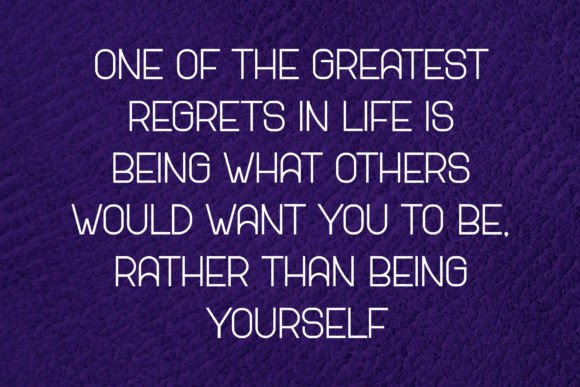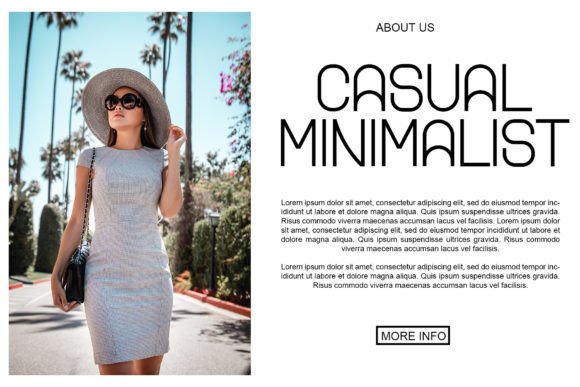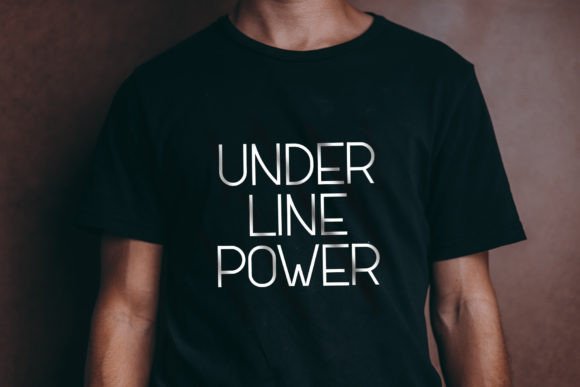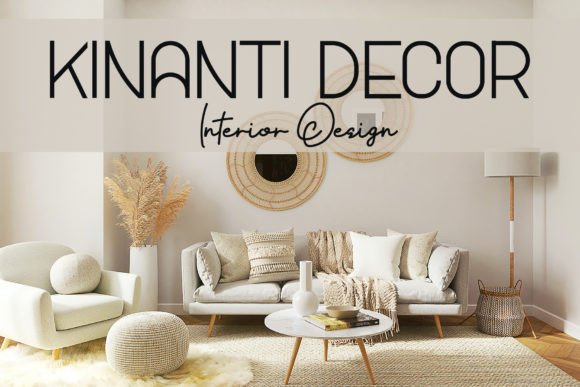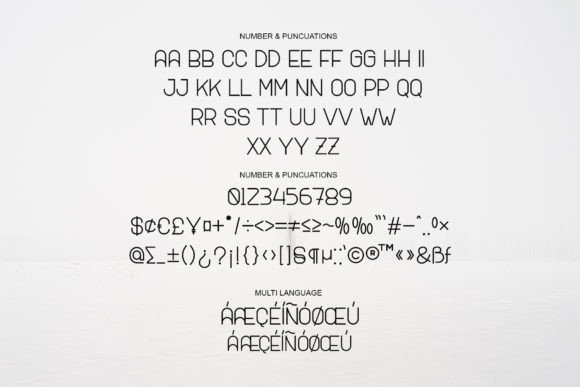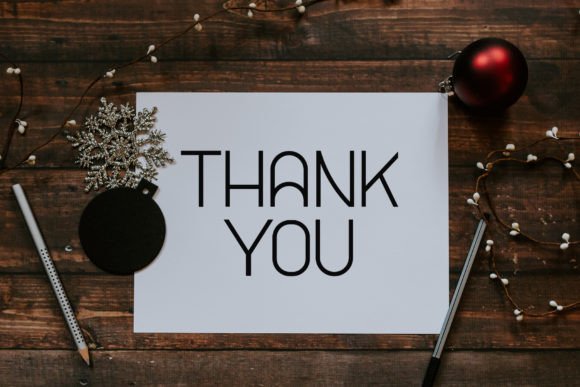
The Ultimate Guide to Flexing Font: Elevate Your Typography Game
I’ll never forget the time I was working on a branding project for a trendy home decor client. I had spent hours perfecting the logo design, but something was missing. The font I had chosen just wasn’t doing justice to the unique vibe of the brand. I scoured the internet for the perfect sans serif font, and that’s when I stumbled upon Flexing Font. It was love at first sight! 💕
Flexing Font is an elegant and versatile sans serif font that has become a staple in my design toolkit. Its unique charm and flexibility make it perfect for a wide range of projects, from branding and logos to headlines and plain text. In this article, I’ll share my experience with Flexing Font, its features, and how to make the most of it in various design platforms.
- 💯 Unique and versatile design: Flexing Font stands out from the crowd with its elegant and modern sans serif design.
- ✅ Multi-purpose: Perfect for branding projects, home-ware designs, product packaging, magazine headers, and more.
- 🎨 Highly customizable: With OpenType features, glyphs, and stylistic alternates, you can experiment with various styles to match your brand’s tone.
- 📸 Stunning text overlays: Flexing Font looks amazing as a stylish text overlay on any background image.
Small Quirks and Limitations 🤔
- ⚠️ Some characters may require manual kerning: While the font is generally well-spaced, some character combinations might need a bit of manual adjustment.
- 🕰️ Can be resource-intensive: When using Flexing Font in large quantities or with complex designs, it may slow down your design software.
The Story Behind Flexing Font: Designer Inspiration
Flexing Font was designed by a team of typography enthusiasts who wanted to create a font that would be both elegant and versatile. Inspired by modern sans serif fonts, they experimented with various styles and OpenType features to create a truly unique font. The result is a font that’s perfect for designers, crafters, and creative hobbyists looking to elevate their typography game.
| Font Name | Flexing Font |
| Author | Protype Studio |
Q: What type of projects is Flexing Font best suited for?
A: Flexing Font is perfect for branding projects, home-ware designs, product packaging, magazine headers, and more.
Q: Is Flexing Font suitable for body text?
A: While Flexing Font is primarily designed for headlines and titles, it can be used for body text in certain contexts. However, its elegance and uniqueness may be lost in large blocks of text.